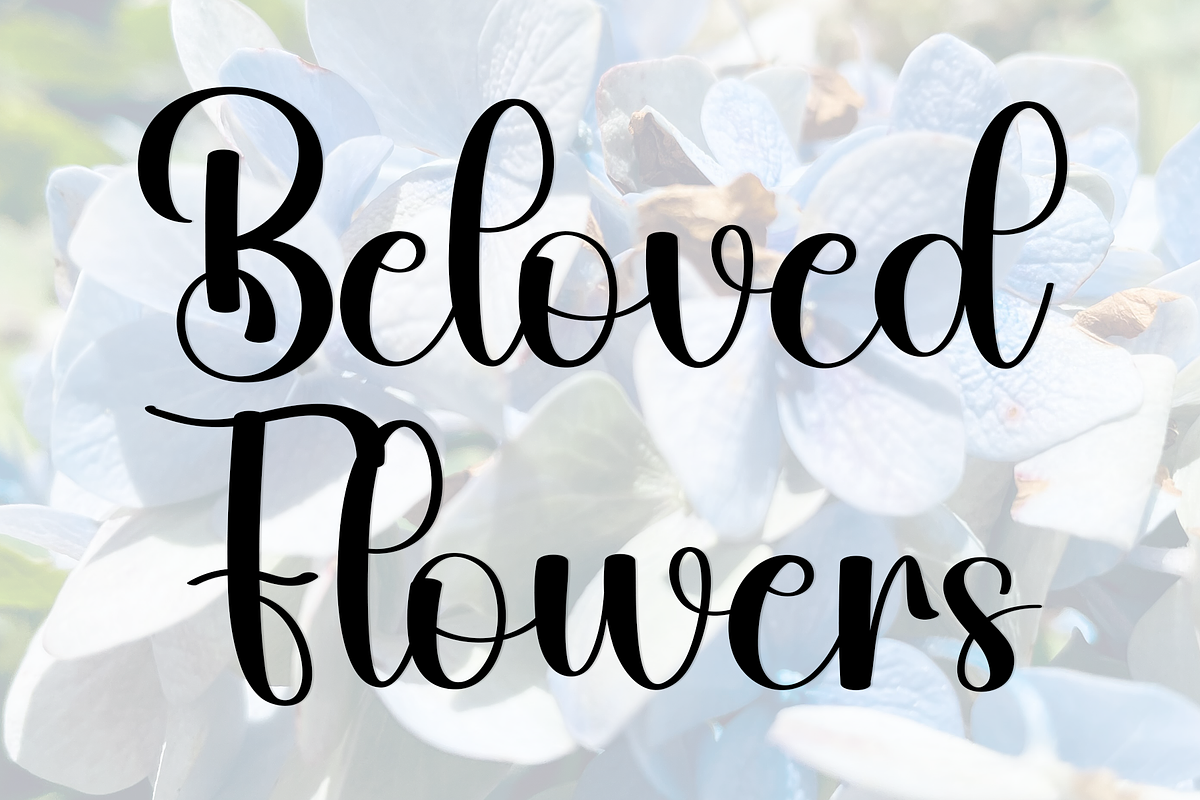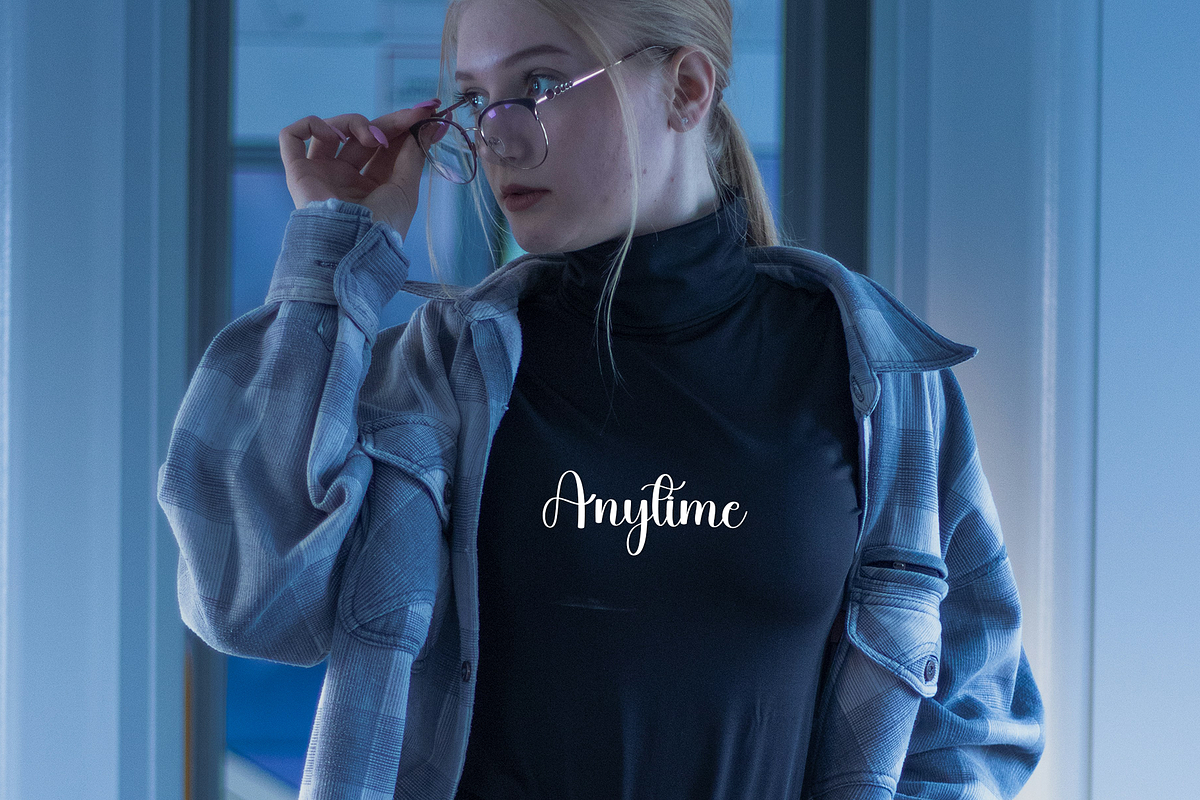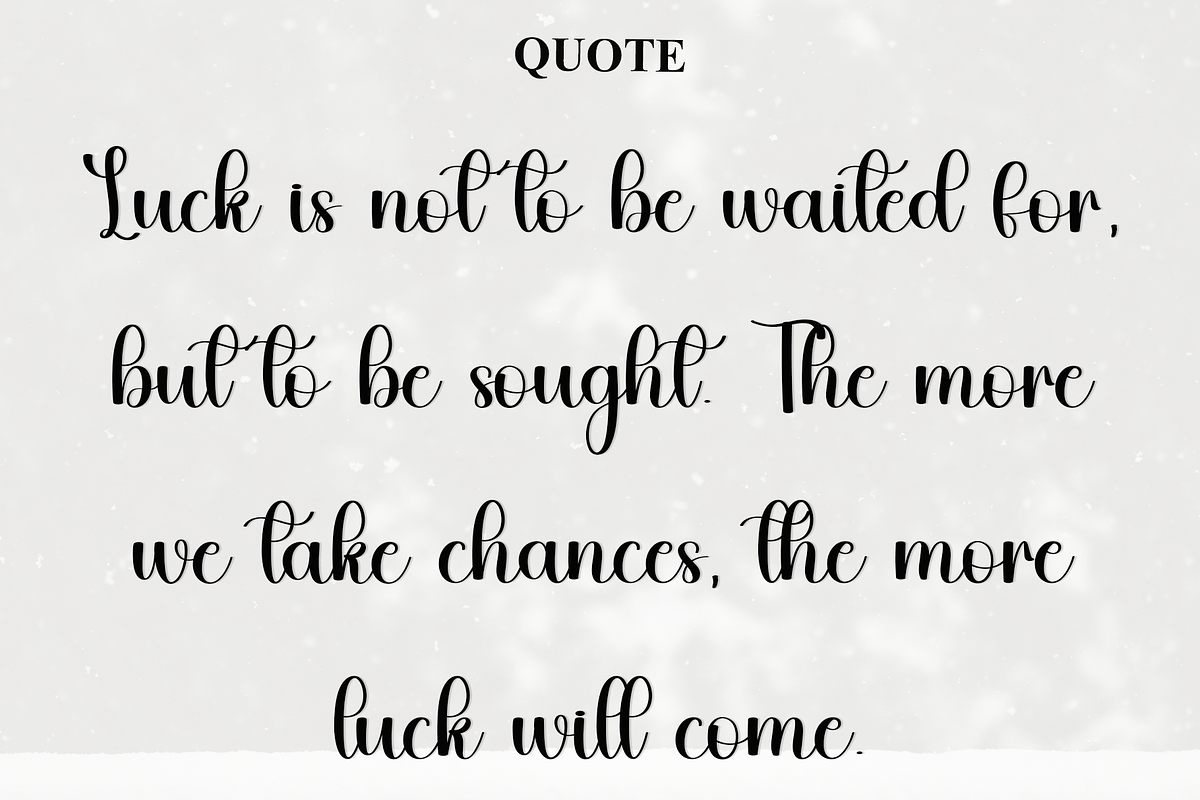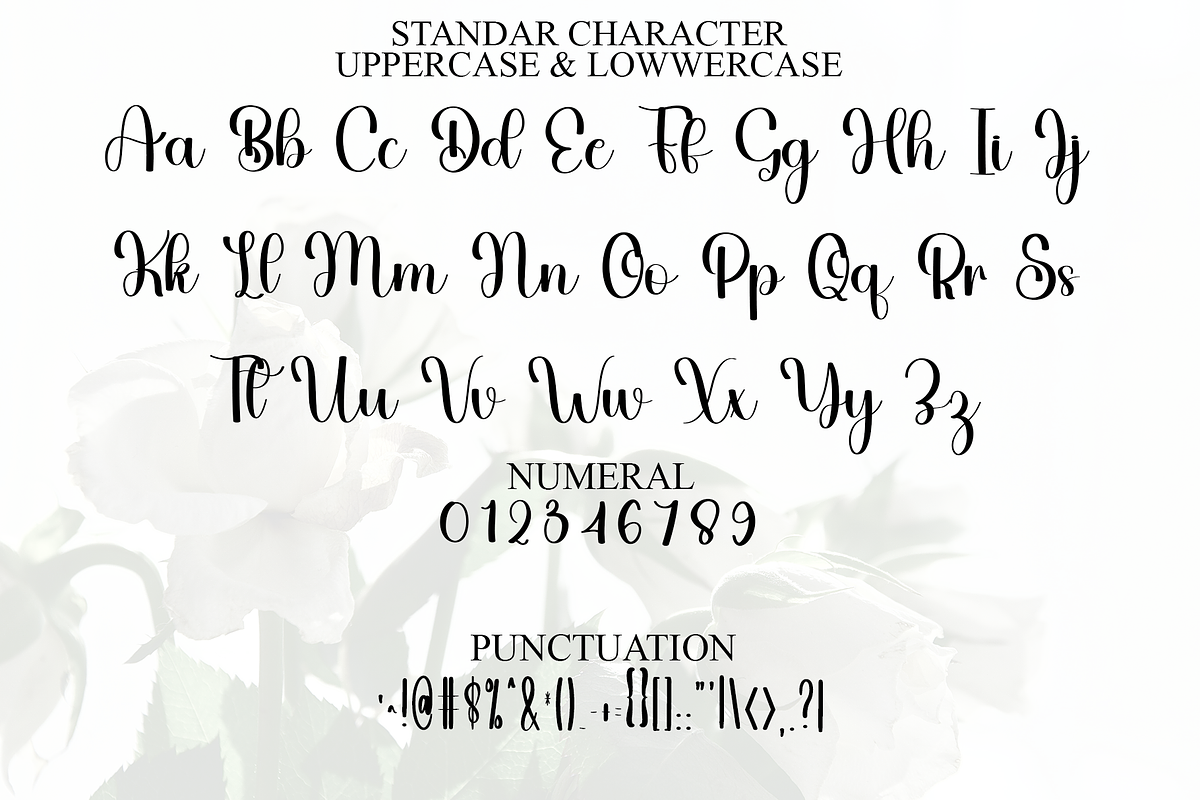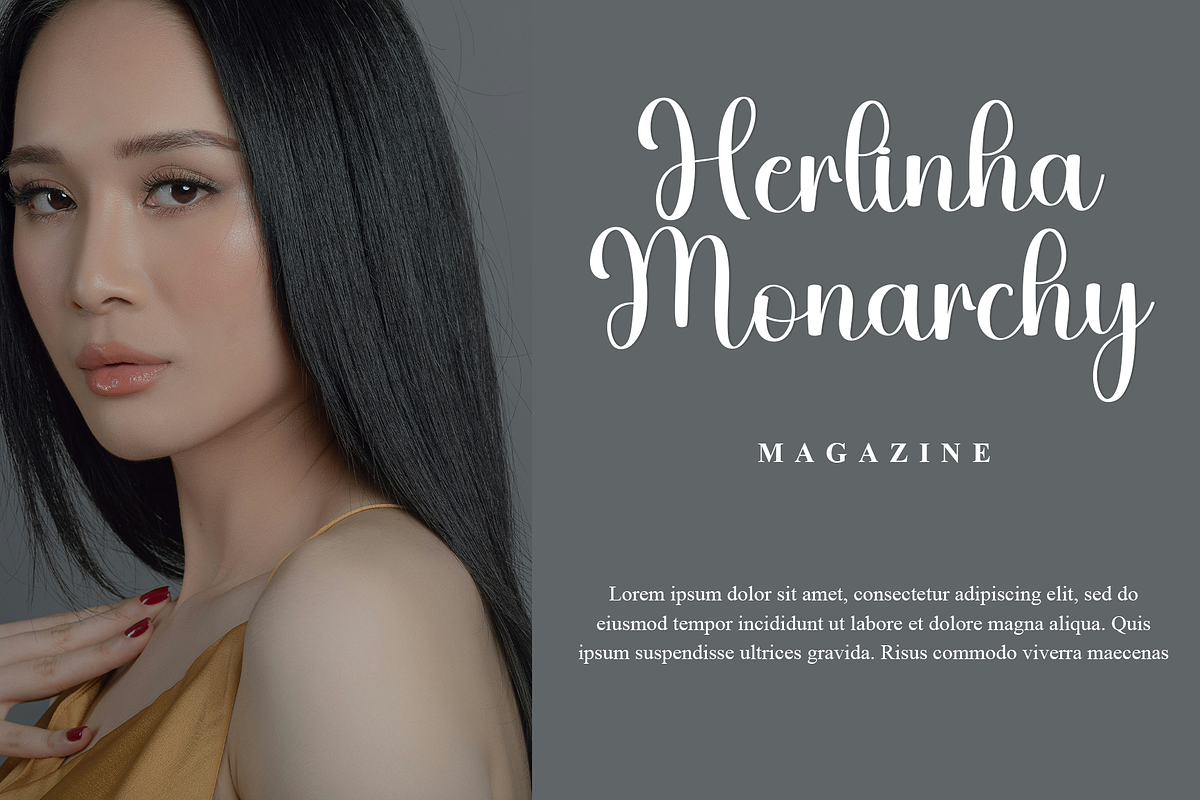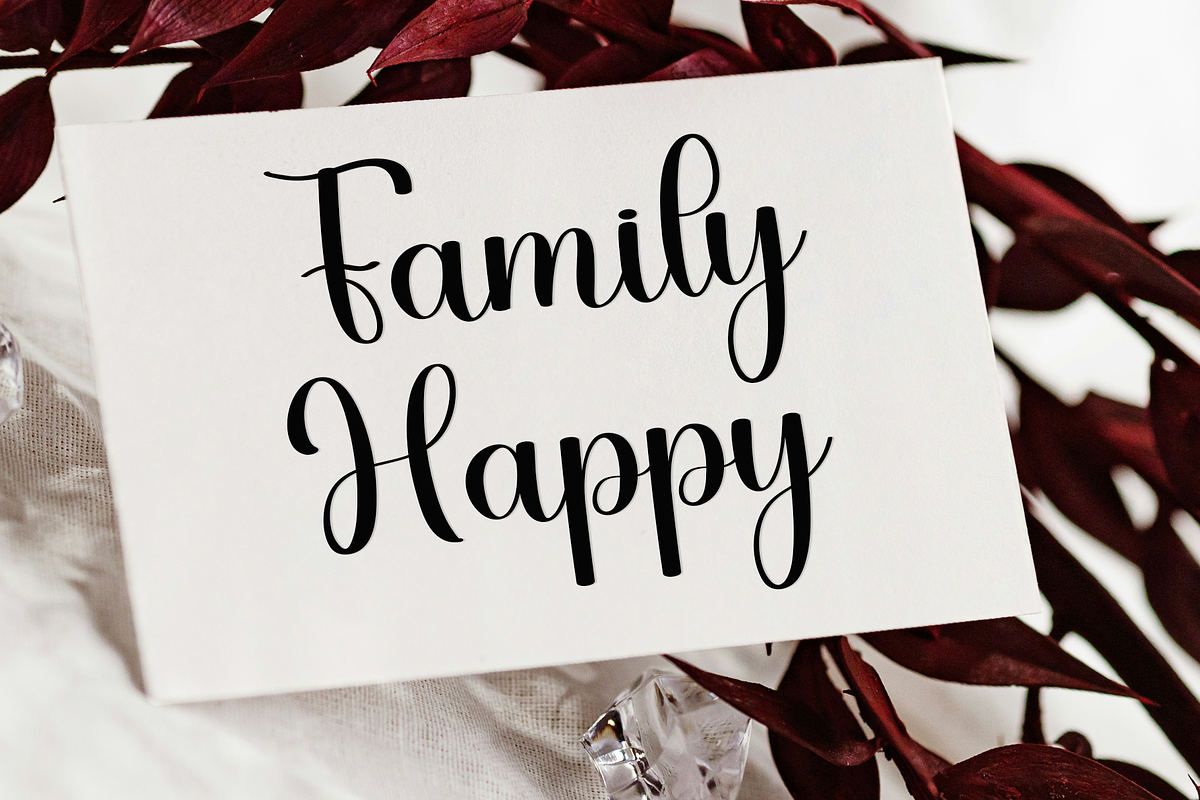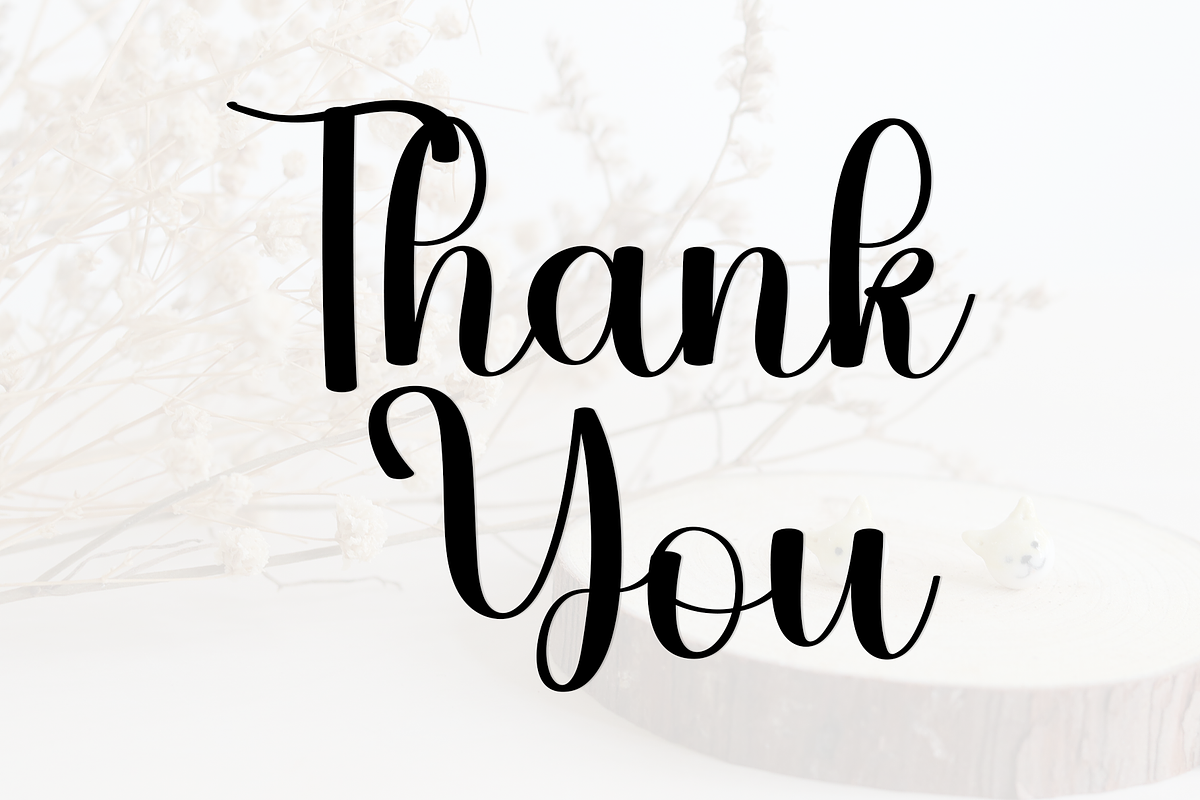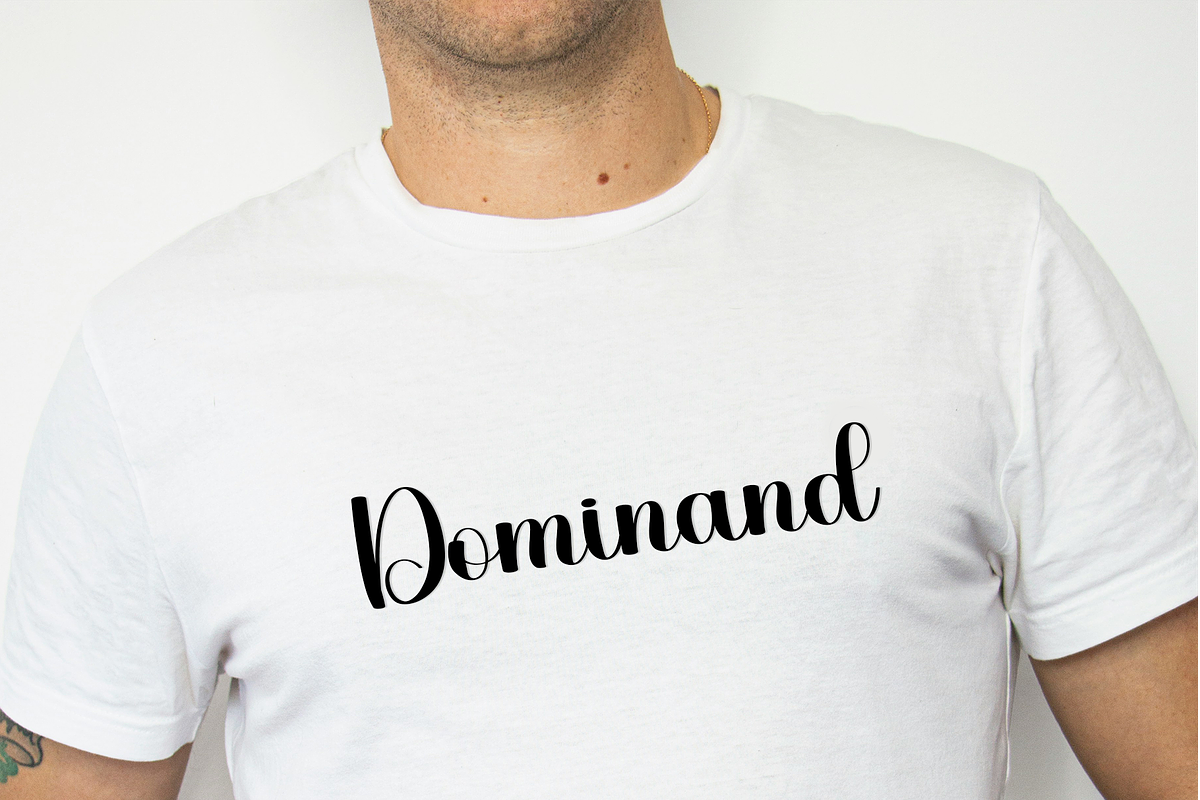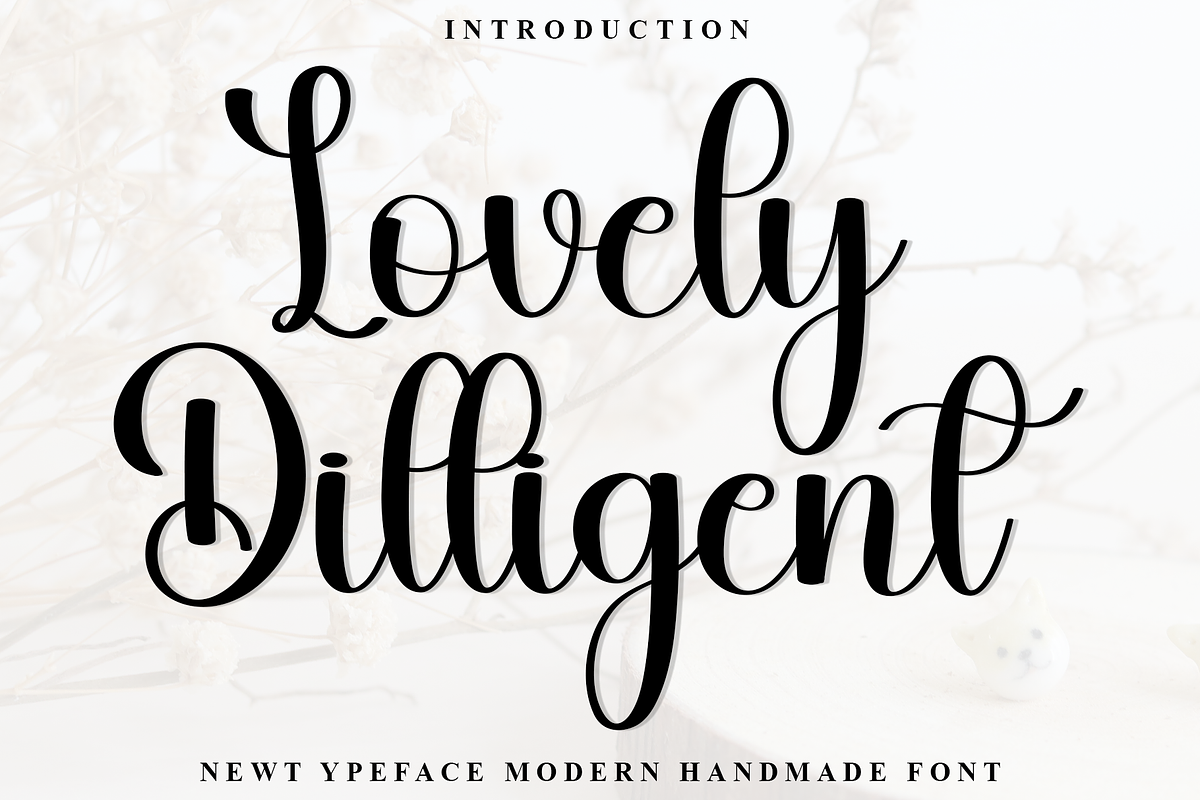
Lovely Dilligent
Lovely Dilligent is a beautiful and eye-catching font designed with a soft, unique touch. Its distinctive strokes give it a special character, making it meaningful and versatile for future use. With various characters, it’s perfect for design projects, crafts, and other creative works.